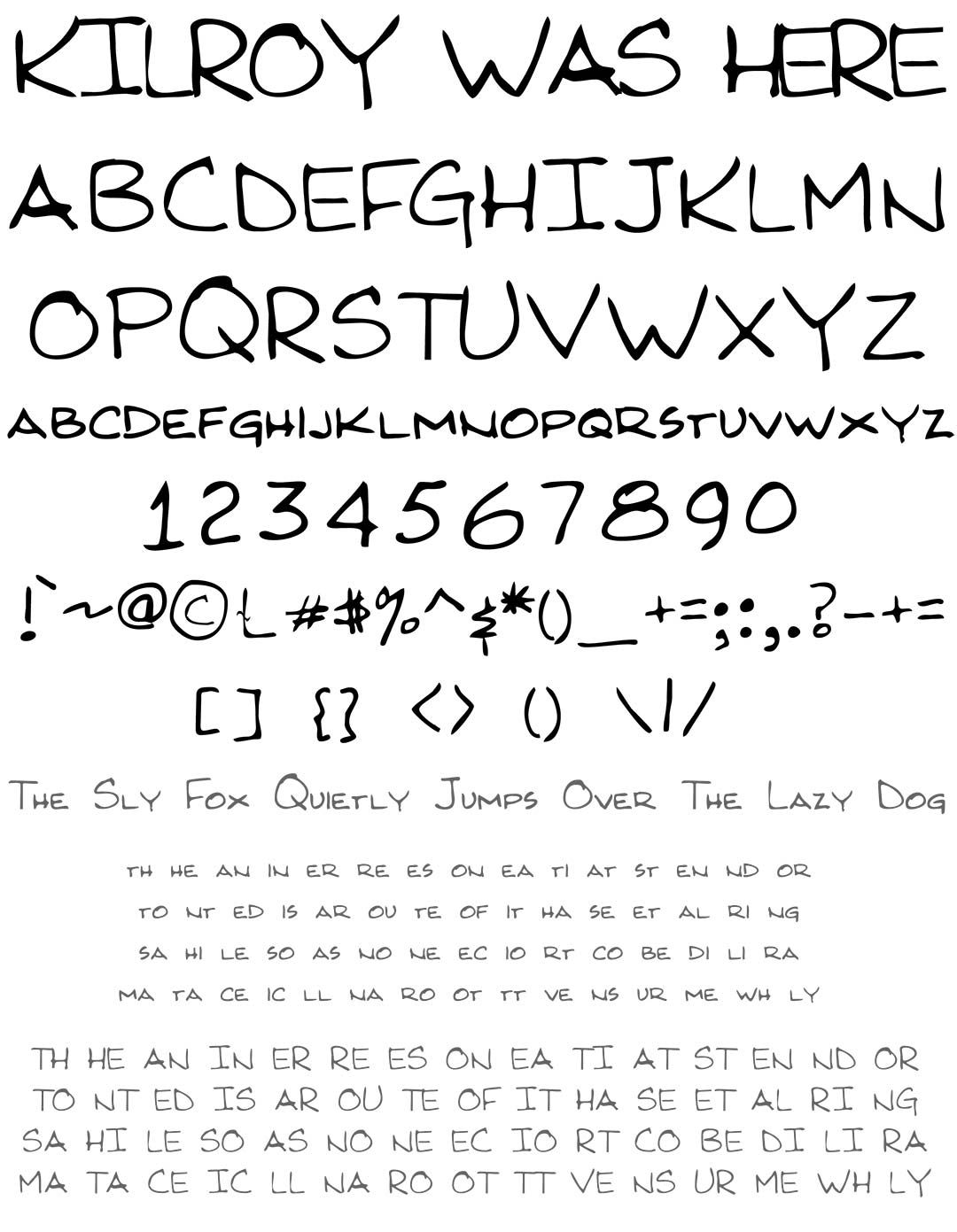
Kilroy Was Here
Kilroy Was Here Graffiti Alphabet
Kilroy Was Here Graffiti Font Family
Before Taki 183 & StayHigh 149 Kilroy was here. This was not a writer but something that was written as graffiti by many people. This phrase was accompanied by a character peeking over a wall.